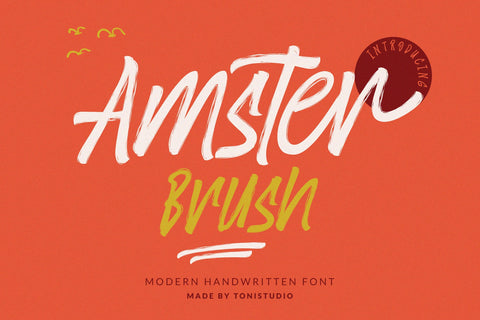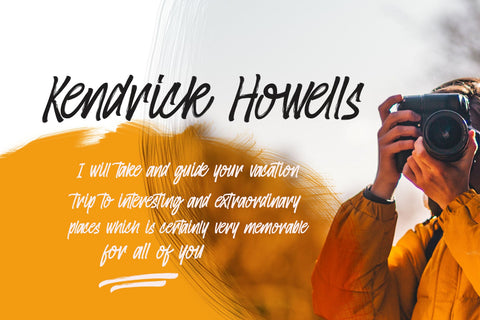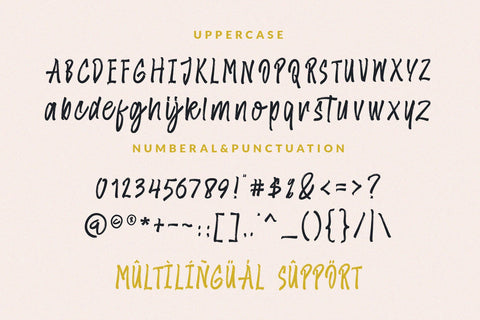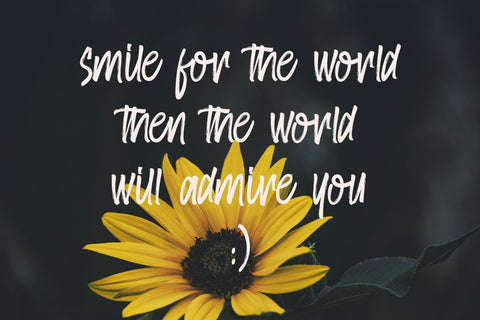
AmsterBrush font
presents the Amster Brush font. This font is ideal for advertising and packaging in text and display settings. Amster Brush
very careful to ensure that the connection is smooth between all possible combinations of characters.
is a very unique and amazing handwritten script. You can use also for title or signature